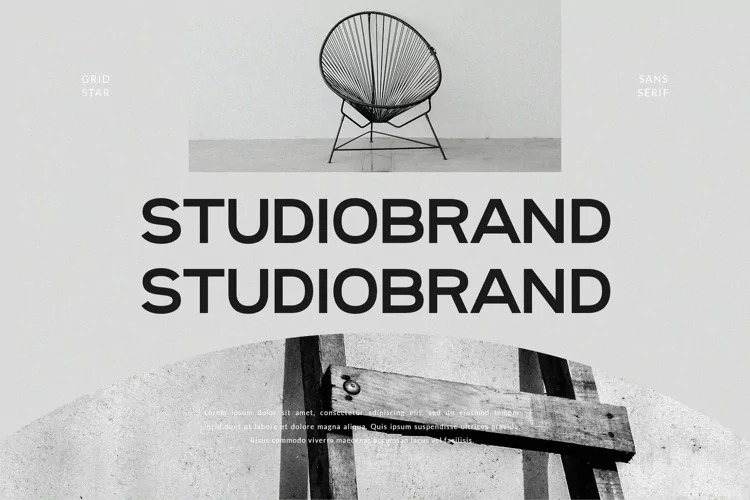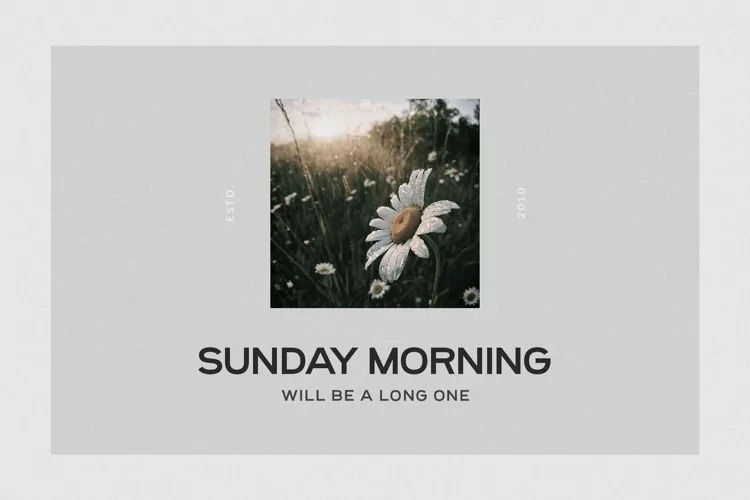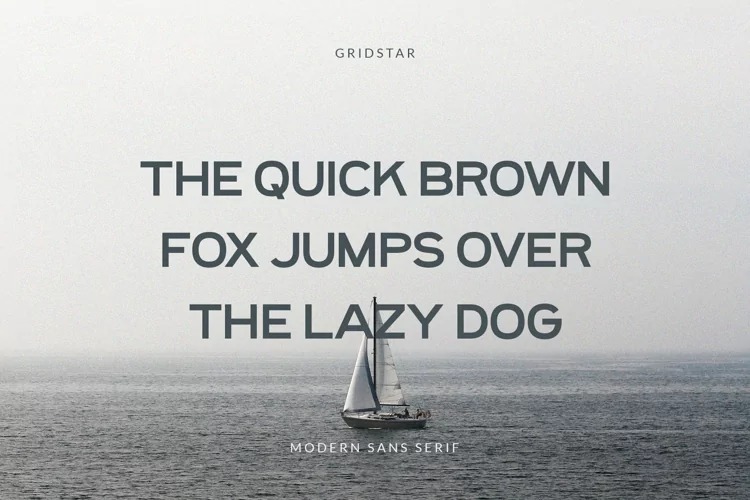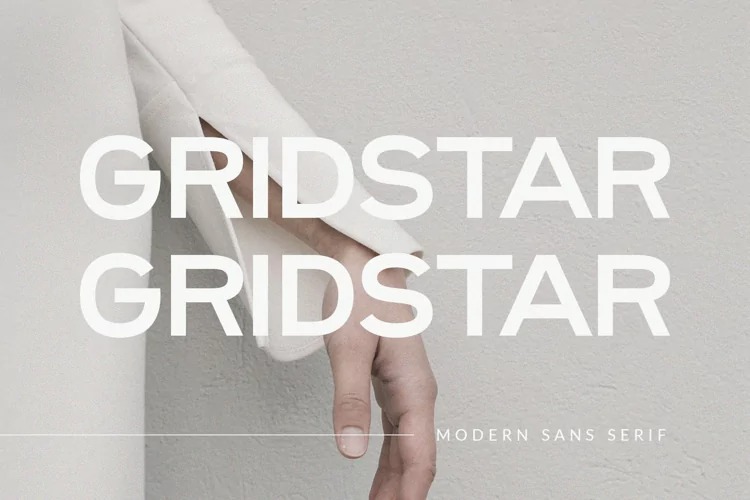
Gridstar Sans Serif Font is an extended sans typeface manufactured by BrandSemut. With its elegant and beautiful arrangement of letters, this typeface will look outstanding in both formal and non-formal designs. Gridstar is a modern and classy typeface, best used as a display for headings, logos, branding, magazines, product packaging and invitations. Gridstar come with clean lines and smooth curves give any project an extra touch of class.